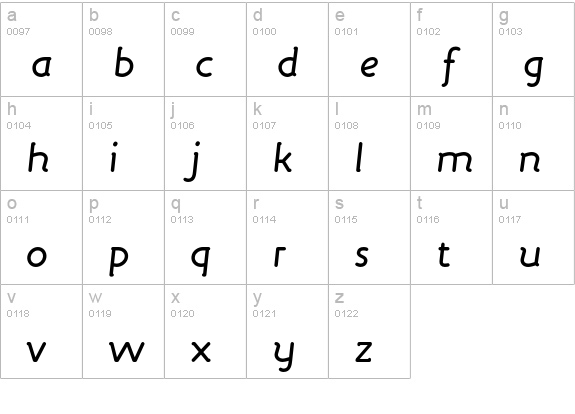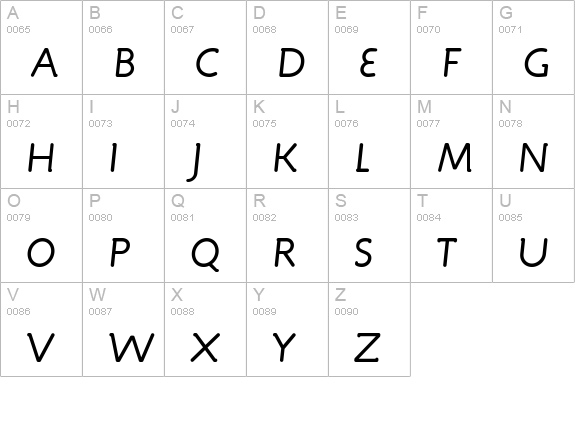
Engine-ItalicLF font is a sleek and modern typeface that exudes elegance and sophistication. With its italicized design, this font adds a touch of flair to any project or design. Whether you're looking to create stylish headings, elegant invitations, or eye-catching logos, Engine-ItalicLF is the perfect choice. The best part is, Engine-ItalicLF is completely free to download at FontsMarket.com. This means you can easily access this stunning font without breaking the bank. Don't miss out on the opportunity to elevate your designs with the timeless beauty of Engine-ItalicLF. Download it today and watch your projects come to life with style and grace.